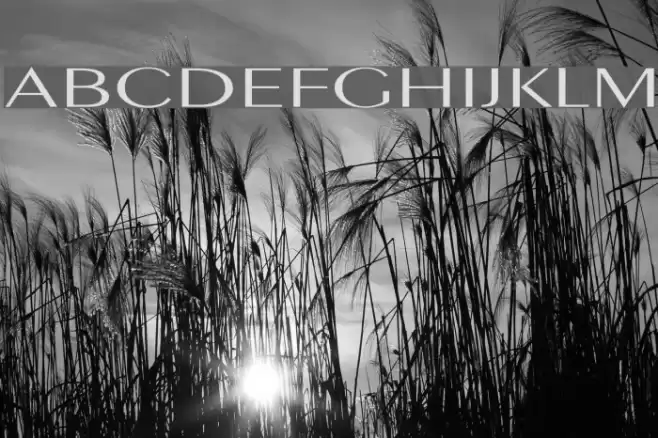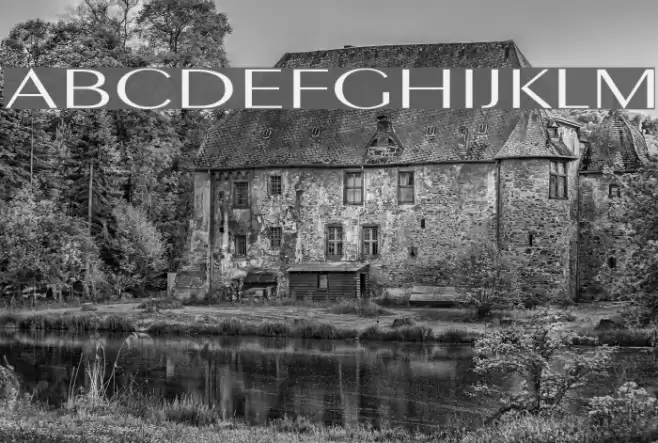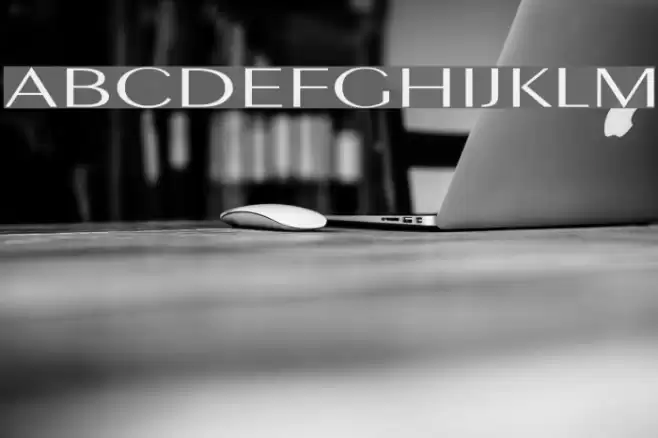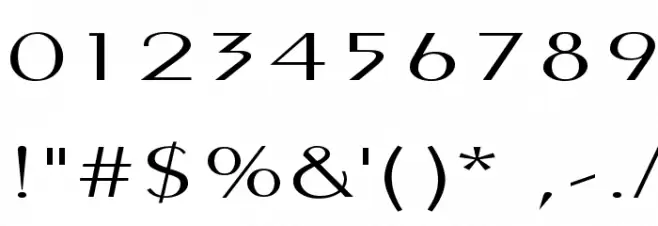
PigNoseTyp Font
PigNoseTyp Description
This font exhibits a modern and sleek design with a distinctive geometric flair. The characters are crafted with a blend of sharp angles and smooth curves, creating a dynamic and stylish appearance. The uppercase letters are bold and commanding, while the lowercase letters maintain a consistent flow with subtle variations in stroke width. The numerals are clear and legible, complementing the overall aesthetic. Special characters are designed with the same attention to detail, ensuring a cohesive look across all glyphs. This font is ideal for projects that require a contemporary and sophisticated touch.
A modern, geometric font with sharp angles and smooth curves from Modern fonts.